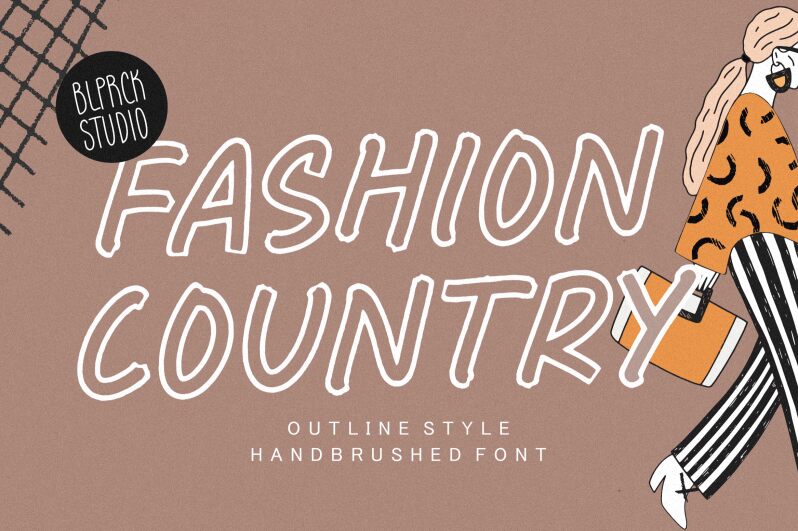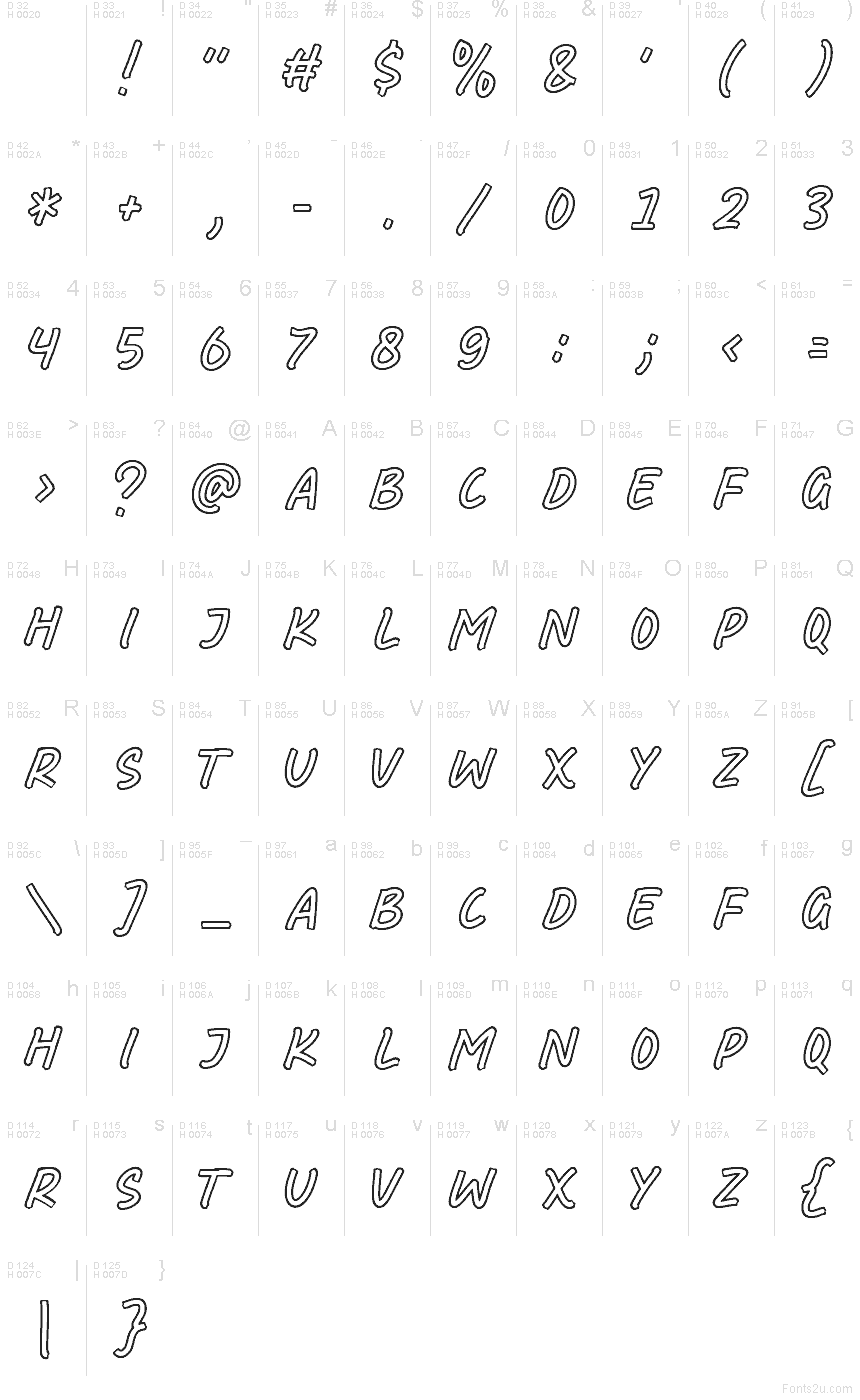
Fashion Country
Fashion Country font by Balpirick Studio is a free brush outlined typeface with a loose, hand-drawn energy that feels like it’s been sketched right onto a poster. Each letter has a casual, marker-style contour—smooth but slightly wobbly—so text looks lively rather than stiff. The hollow strokes give it plenty of breathing room, making words feel airy, stylish, and easy to layer over photos, textures, or bold color blocks.
Using Fashion Country, you can add playful emphasis to social media graphics, fashion lookbook covers, youth branding, packaging, café menus, or festival posters. This free font shines at larger sizes where the outlined brushwork can really show; pair it with a clean, neutral sans serif for body text so its loose personality stays in the spotlight.